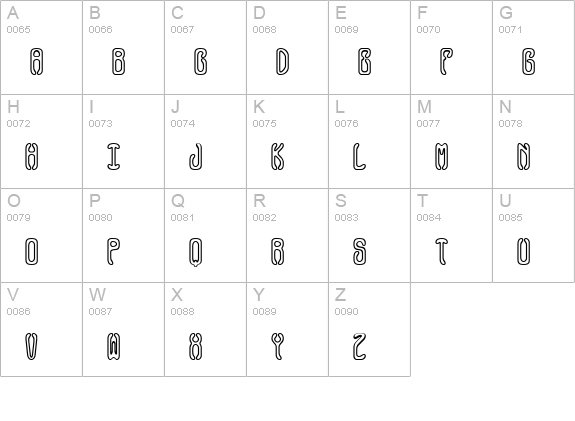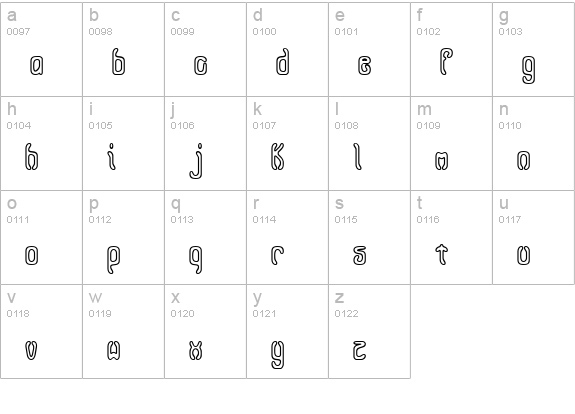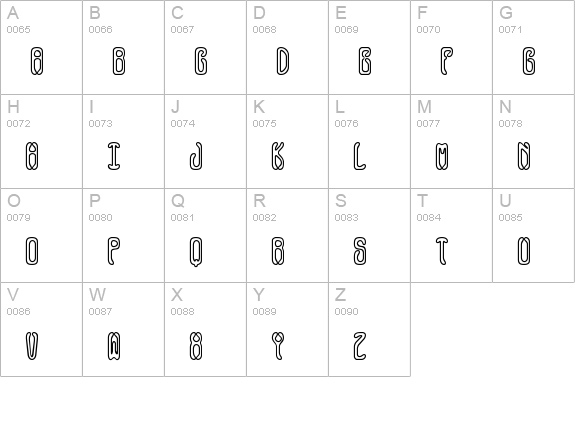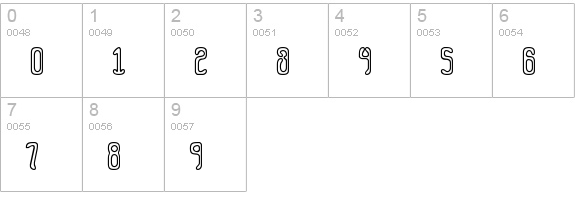
Queasy Outline (BRK) Font Details
Queasy Outline (BRK) font is a captivating and eye-catching typeface that exudes a sense of quirkiness and playfulness. With its unique outline design, this font is sure to add a touch of whimsy to any project or design. The Queasy Outline (BRK) font is perfect for various creative endeavors such as posters, logos, book covers, and advertisements. Its bold and distinct lines make it stand out on both digital and print platforms, ensuring that your message will be noticed and remembered. One of the most impressive features of Queasy Outline (BRK) font is its versatility. It can effortlessly adapt to different themes and styles, whether you're going for a retro-inspired look or a modern and sleek aesthetic. This font is a great choice for designers who are looking to make a statement and leave a lasting impression. But what sets Queasy Outline (BRK) font apart from other fonts in its category is that it is free! Yes, you read that right. This font is freely available to download at FontsMarket.com. So not only do you get an amazing and attention-grabbing font, but you can also enjoy the convenience and accessibility of a free download. So why wait? Take your design projects to the next level with the Queasy Outline (BRK) font. Its unique and captivating design, coupled with its availability as a free download, makes it a must-have for any designer or creative individual looking to add a touch of fun and excitement to their work. Don't miss out on this opportunity to enhance your designs and make a bold statement – download Queasy Outline (BRK) font today!